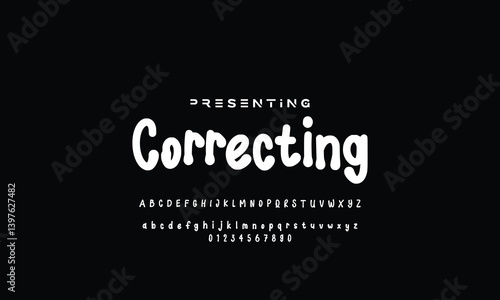
Playful style font design, colorful childish alphabet, letters and numbers vector illustration. font modern bouncy typeset, lively friendly alphabet. Playful cheerful letters.